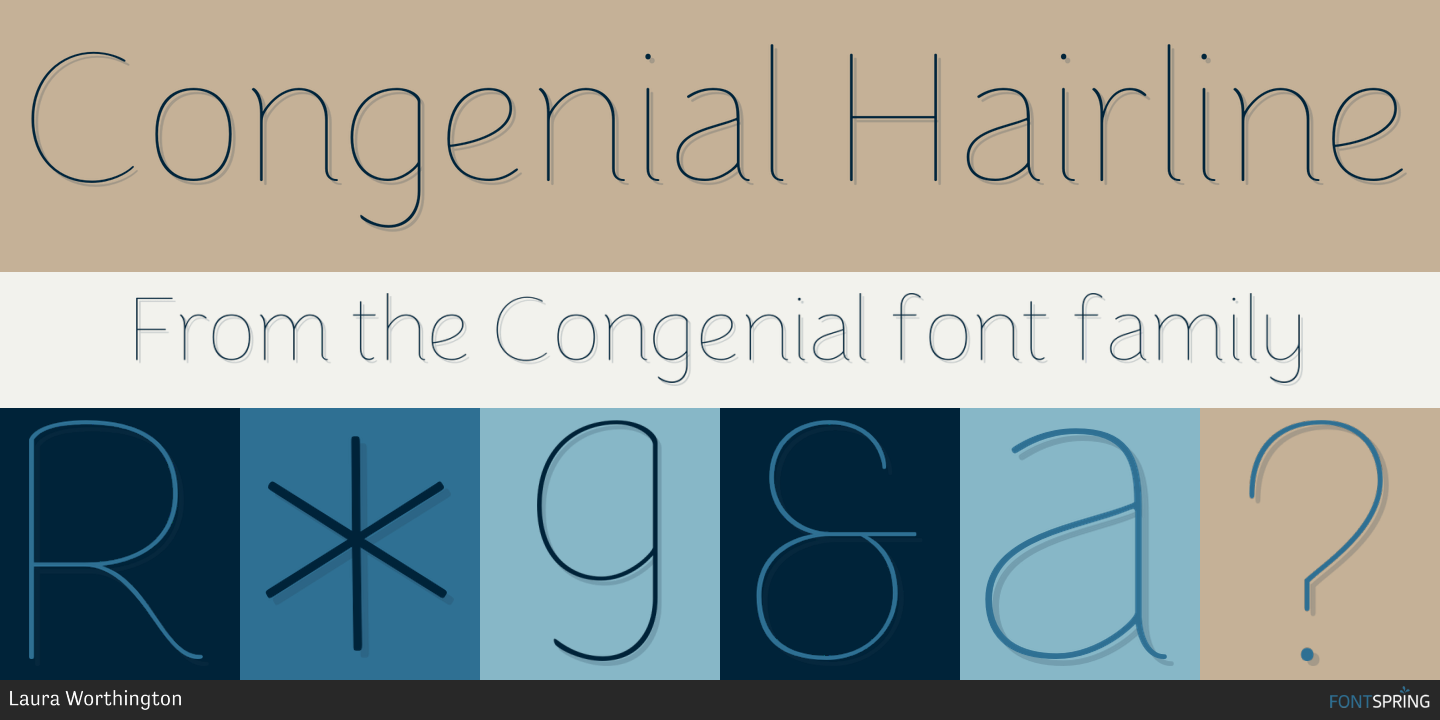
Congenial Font Free Download . Web congenial is a friendly and inviting sans serif font family by laura worthington. Web archive of freely downloadable fonts.
Web congenial font family is a modern and casual typeface by laura worthington, with 10 weights and 413 characters. Web archive of freely downloadable fonts. It has 10 styles from hairline to black, but they are not free to download.
It is not a free font, but you can. Browse by alphabetical listing, by style, by author or by popularity. A sans serif typeface with 20 styles, available from. Web archive of freely downloadable fonts.
Congenial Font Free Download - Web explore congenial designed by laura worthington at adobe fonts. It has 10 styles from hairline to black, but they are not free to download. Web congenial font family is a modern and casual typeface by laura worthington, with 10 weights and 413 characters. Web congenial is a friendly and inviting sans serif font family by laura worthington. It is.
Congenial Font Free Download - Browse by alphabetical listing, by style, by author or by popularity. It is not a free font, but you can. Web archive of freely downloadable fonts. It has 10 styles from hairline to black, but they are not free to download. A sans serif typeface with 20 styles, available from.
Congenial Font Free Download - Web congenial font family is a modern and casual typeface by laura worthington, with 10 weights and 413 characters. It is not a free font, but you can. It has 10 styles from hairline to black, but they are not free to download. Browse by alphabetical listing, by style, by author or by popularity. Web explore congenial designed by laura.
Congenial Font Free Download - It is not a free font, but you can. Browse by alphabetical listing, by style, by author or by popularity. Web congenial is a friendly and inviting sans serif font family by laura worthington. Web explore congenial designed by laura worthington at adobe fonts. Web archive of freely downloadable fonts.
Congenial Font Free Download - Web congenial font family is a modern and casual typeface by laura worthington, with 10 weights and 413 characters. It is not a free font, but you can. Web congenial is a friendly and inviting sans serif font family by laura worthington. A sans serif typeface with 20 styles, available from. Browse by alphabetical listing, by style, by author or.
Congenial Font Free Download - Web congenial is a friendly and inviting sans serif font family by laura worthington. A sans serif typeface with 20 styles, available from. Web archive of freely downloadable fonts. It is not a free font, but you can. Web explore congenial designed by laura worthington at adobe fonts.
Congenial Font Free Download - Web explore congenial designed by laura worthington at adobe fonts. Browse by alphabetical listing, by style, by author or by popularity. It is not a free font, but you can. Web congenial font family is a modern and casual typeface by laura worthington, with 10 weights and 413 characters. It has 10 styles from hairline to black, but they are.
Congenial Font Free Download - It has 10 styles from hairline to black, but they are not free to download. It is not a free font, but you can. Web archive of freely downloadable fonts. Browse by alphabetical listing, by style, by author or by popularity. Web congenial font family is a modern and casual typeface by laura worthington, with 10 weights and 413 characters.
Congenial Font Free Download - Browse by alphabetical listing, by style, by author or by popularity. It has 10 styles from hairline to black, but they are not free to download. It is not a free font, but you can. Web congenial font family is a modern and casual typeface by laura worthington, with 10 weights and 413 characters. Web congenial is a friendly and.
Congenial Font Free Download - Web congenial is a friendly and inviting sans serif font family by laura worthington. Browse by alphabetical listing, by style, by author or by popularity. It is not a free font, but you can. It has 10 styles from hairline to black, but they are not free to download. A sans serif typeface with 20 styles, available from.
Congenial Font Free Download - A sans serif typeface with 20 styles, available from. Browse by alphabetical listing, by style, by author or by popularity. Web congenial is a friendly and inviting sans serif font family by laura worthington. Web archive of freely downloadable fonts. Web explore congenial designed by laura worthington at adobe fonts.
Congenial Font Free Download - A sans serif typeface with 20 styles, available from. It is not a free font, but you can. It has 10 styles from hairline to black, but they are not free to download. Browse by alphabetical listing, by style, by author or by popularity. Web congenial is a friendly and inviting sans serif font family by laura worthington.
Congenial Font Free Download - It has 10 styles from hairline to black, but they are not free to download. Web archive of freely downloadable fonts. A sans serif typeface with 20 styles, available from. Web explore congenial designed by laura worthington at adobe fonts. Web congenial is a friendly and inviting sans serif font family by laura worthington.